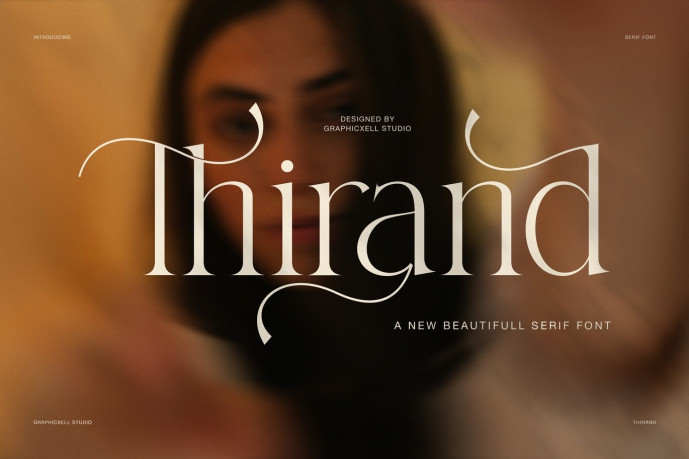
Thirand Font
Thirand Font is a refined display serif with a soft, artistic, and graceful voice. It blends classic serif structure with long decorative swashes, so it feels elegant at first glance and highly expressive in use. Because of that balance, Thirand is ideal for designers who want a serif font that looks premium, stylish, and full of character.
The shape of Thirand is delicate, yet it still carries strong visual impact. Its letterforms show thin contrast, smooth stems, and clean serif endings. At the same time, many characters include long flowing curves, extended terminals, and graceful alternate forms. These details add movement, rhythm, and a custom look to every word. As a result, Thirand feels more artistic than a standard serif font, while still staying readable in display sizes.
In the preview layouts, Thirand performs beautifully across branding, fashion, creative agency work, quotes, furniture presentations, and personal identity designs. It can look elegant and feminine in one composition. Meanwhile, it can also feel modern and editorial in another. Therefore, this font is flexible for both luxury and lifestyle projects.
Another major strength is its alternate character set and ligature support. The alternate letters create more styling options for logos, headlines, and signature-style wordmarks. In addition, the ligatures help text feel smooth and polished. Because of this, Thirand is very useful for branding systems that need a unique and elevated tone.